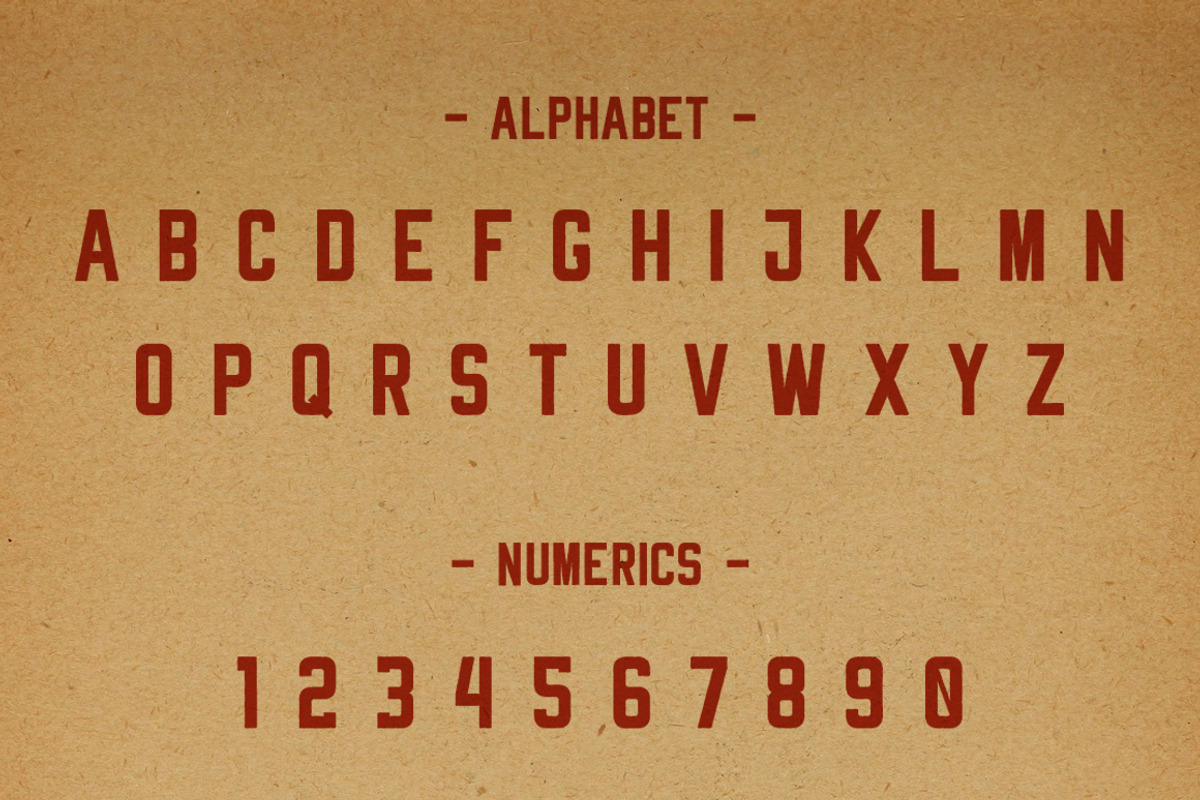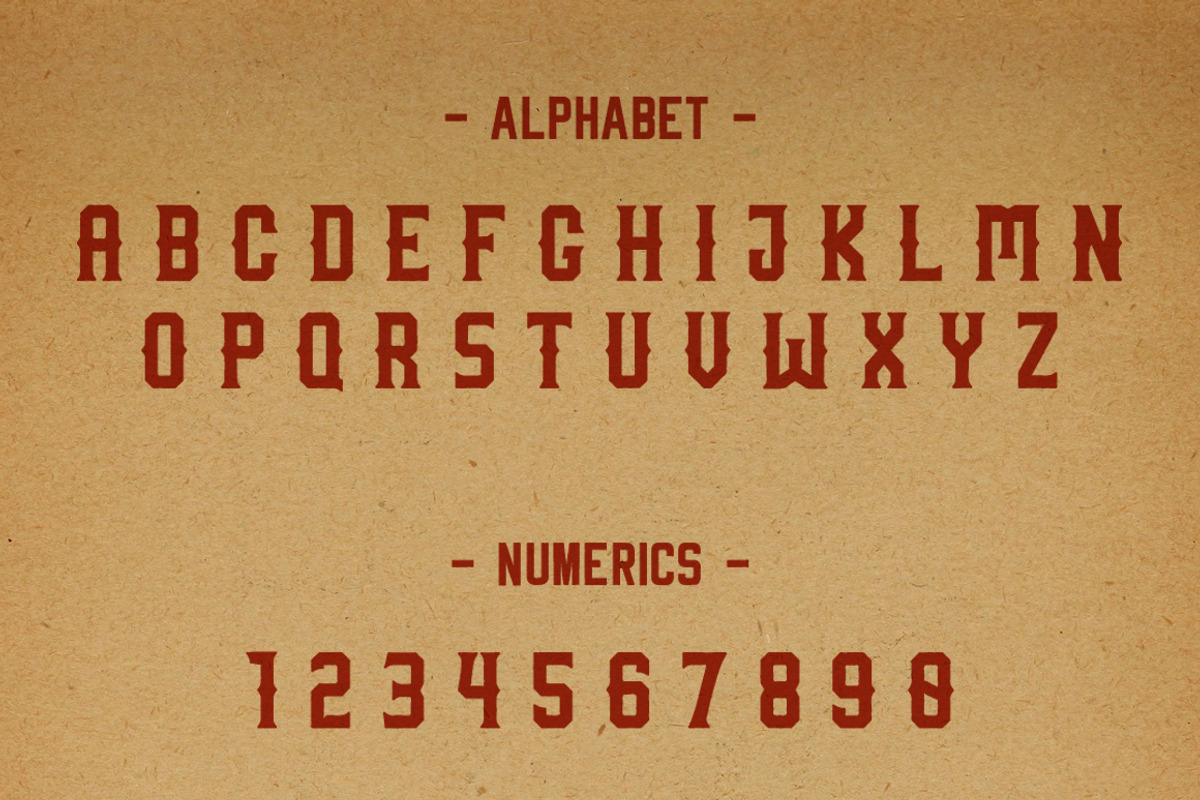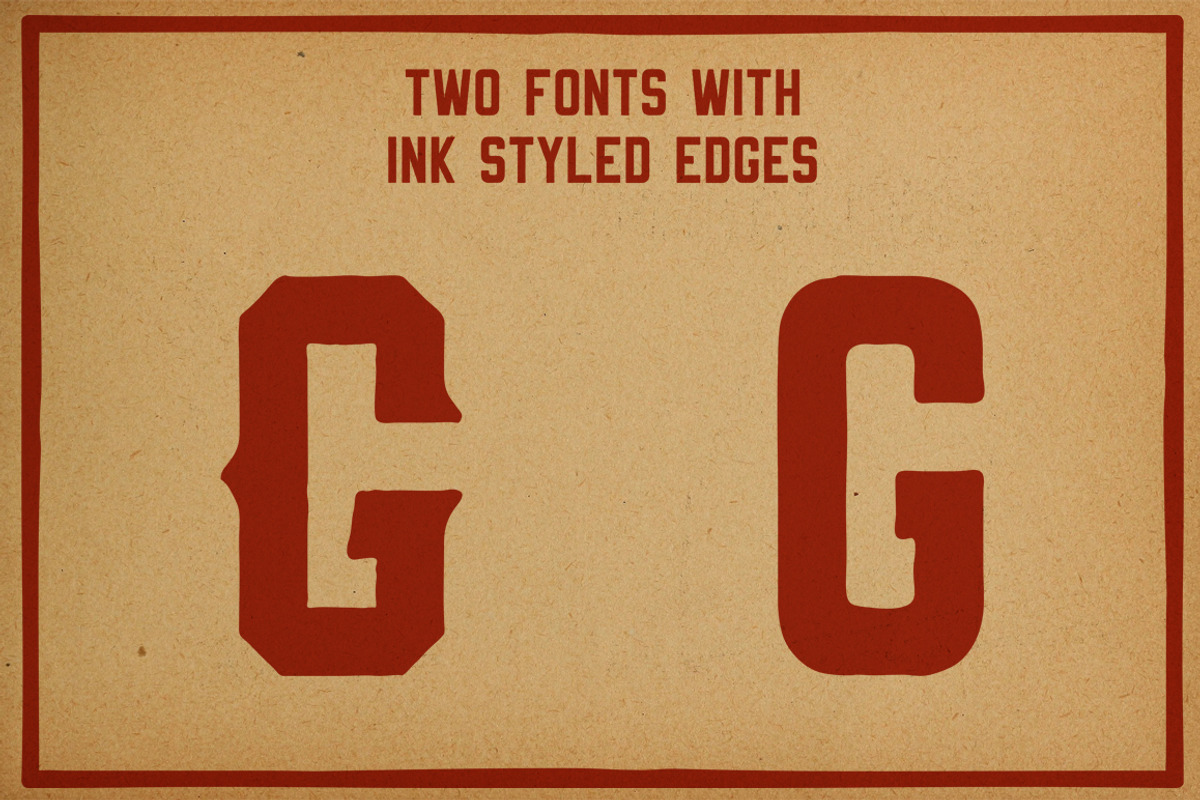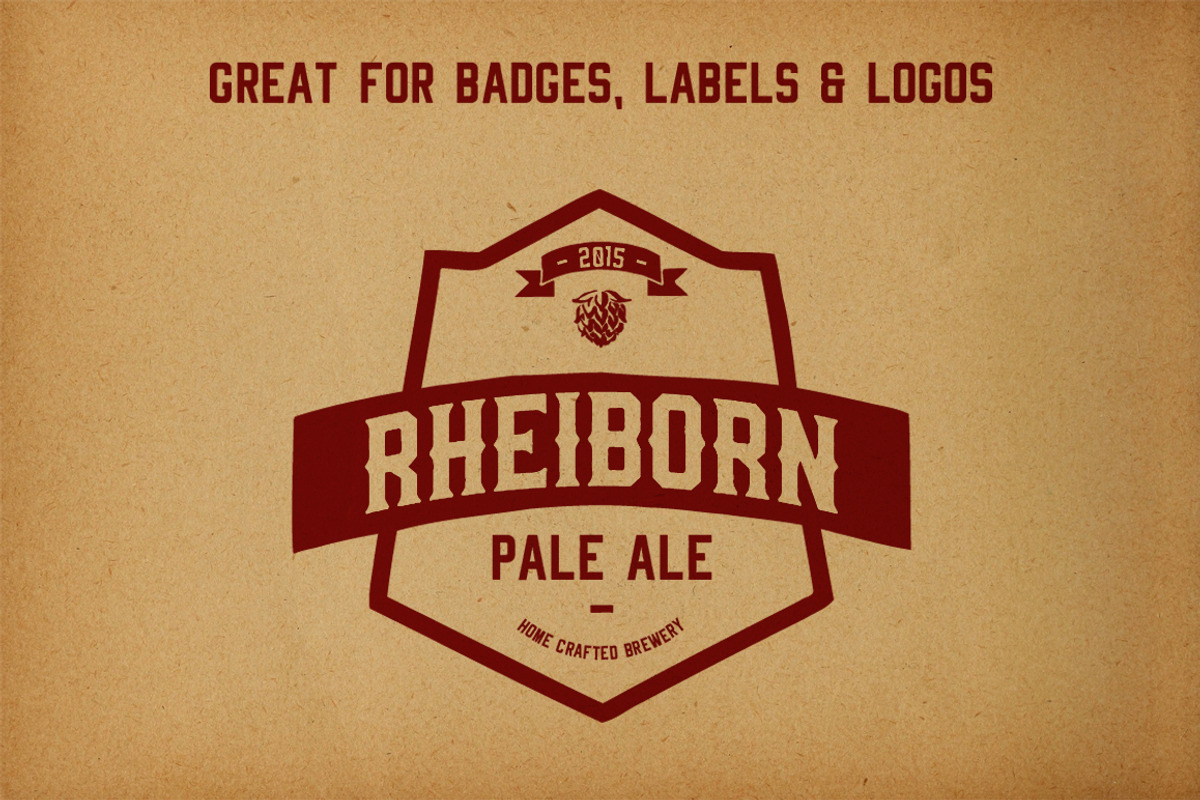
Rheiborn Font Duo + Free Font
Rheiborn Font Duo + Free Font by Bart Wesolek is a font selected for branding, posters, packaging, typography.
- Rheiborn Display Rheiborn Sans Font contains only basic western alphabet, numerics and special characters.
- Rheiborn Display Display
- Rheiborn Sans Sans
Rheiborn Font Duo + Free Font by Bart Wesolek fits naturally into Branding, posters, packaging, typography.